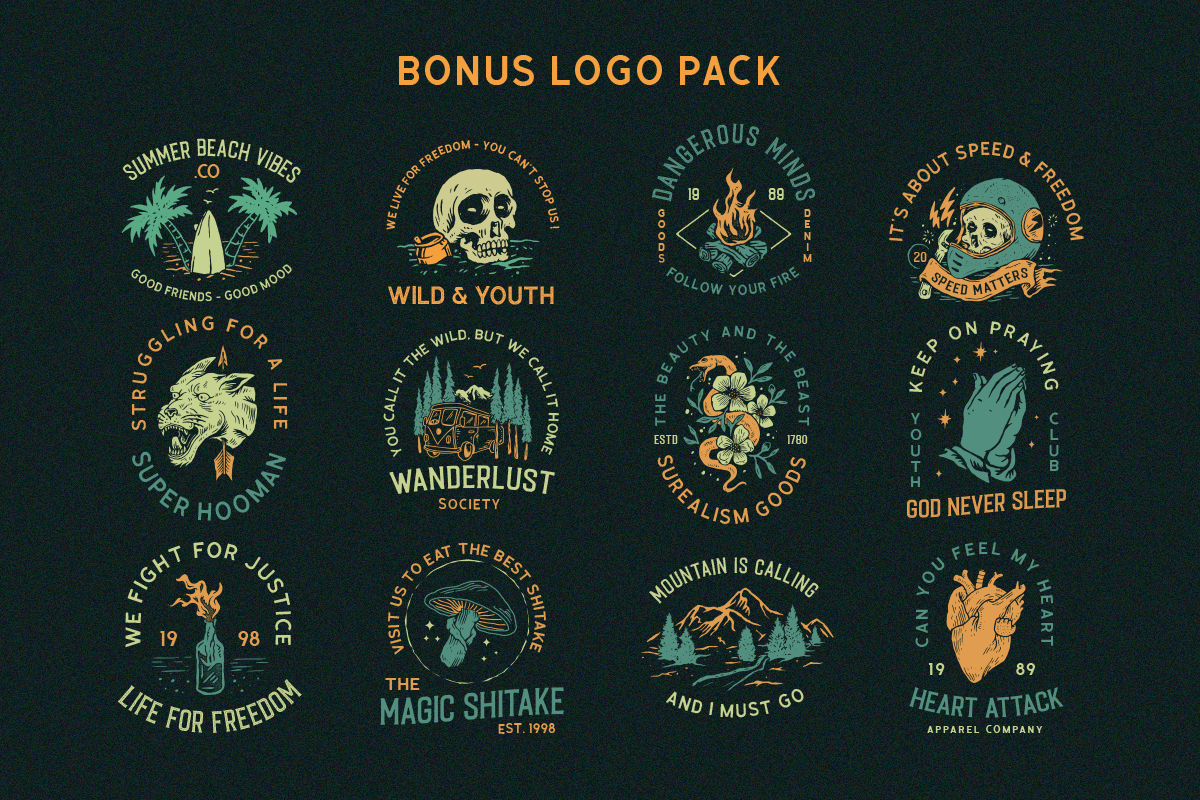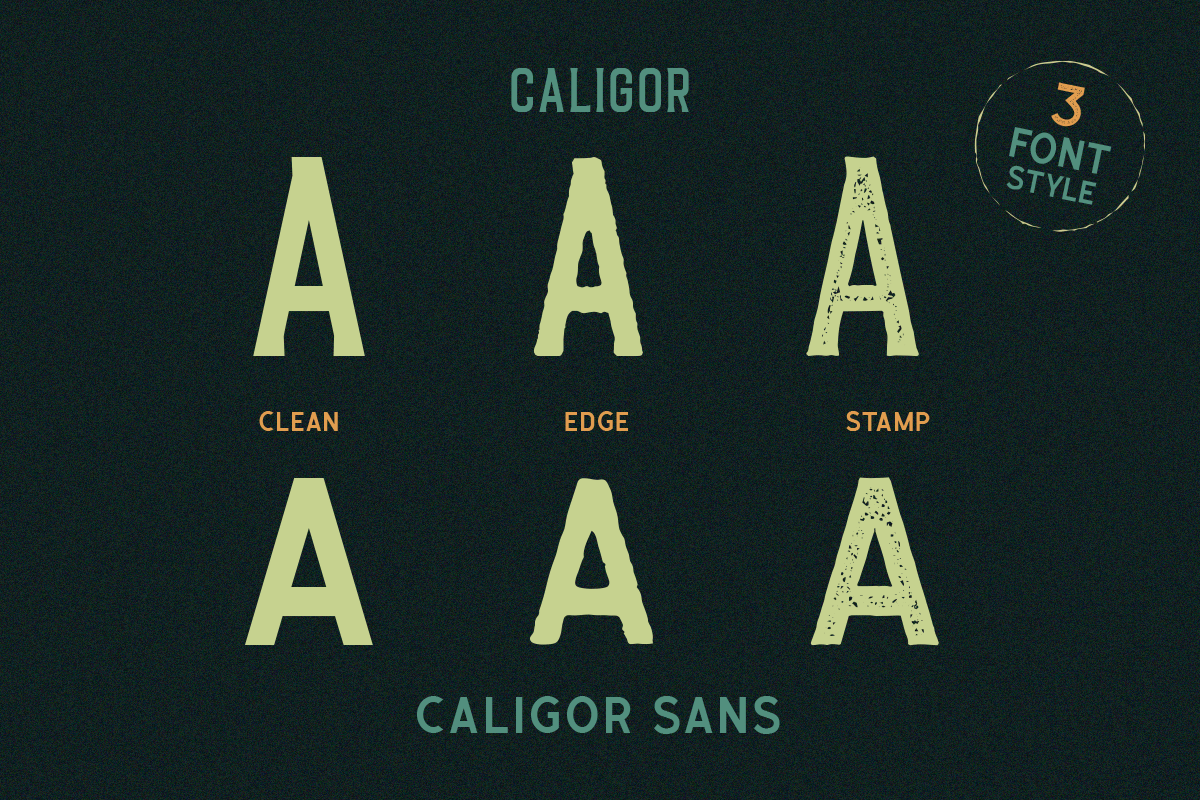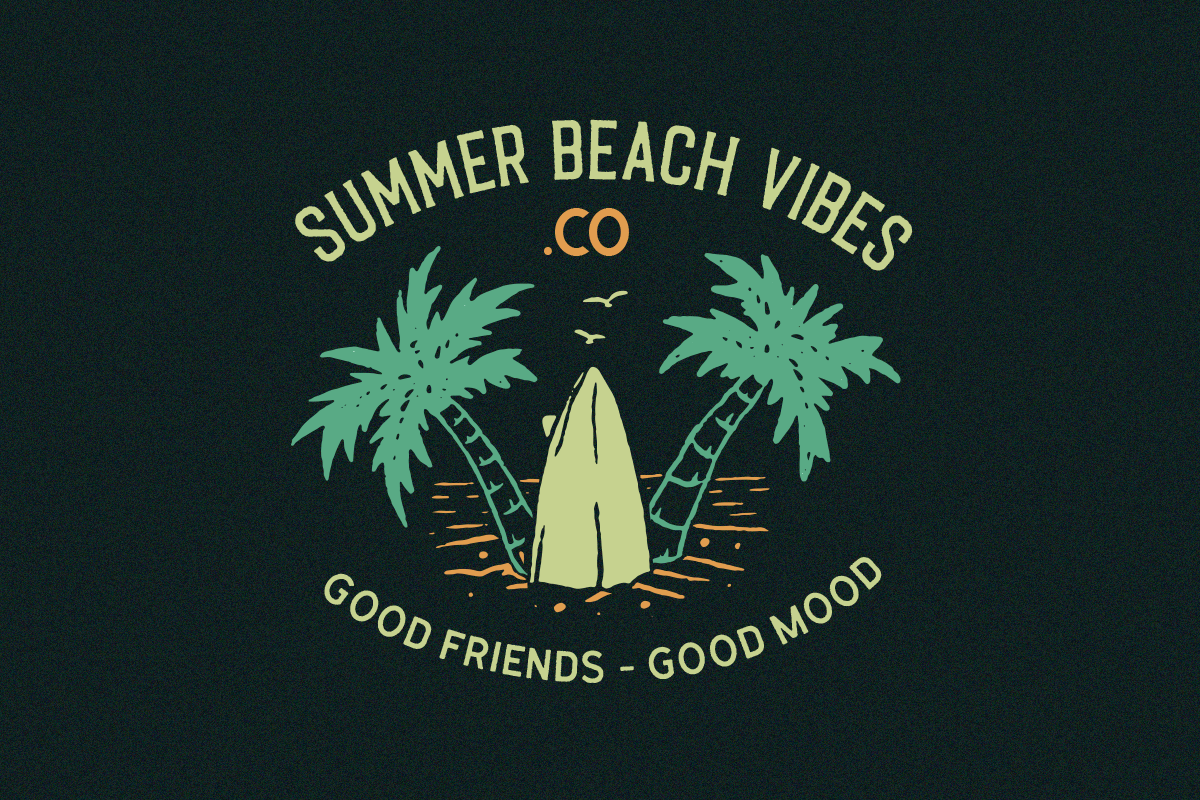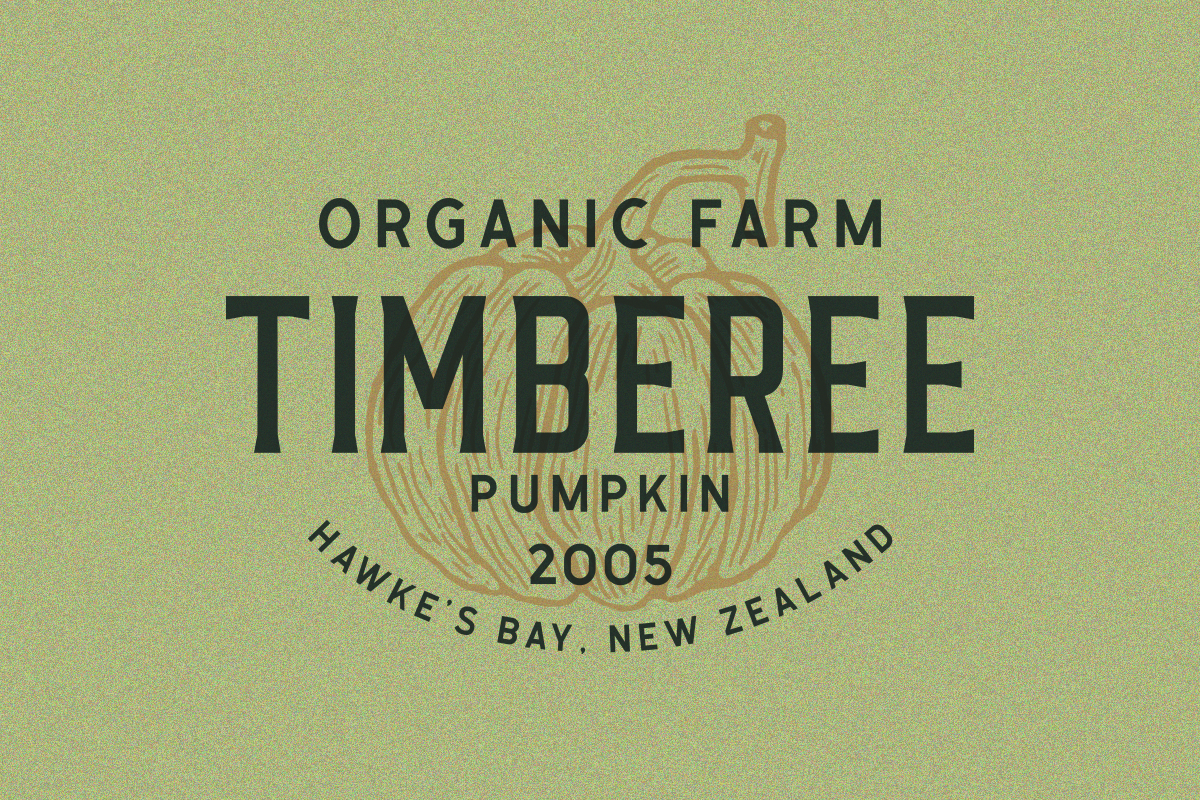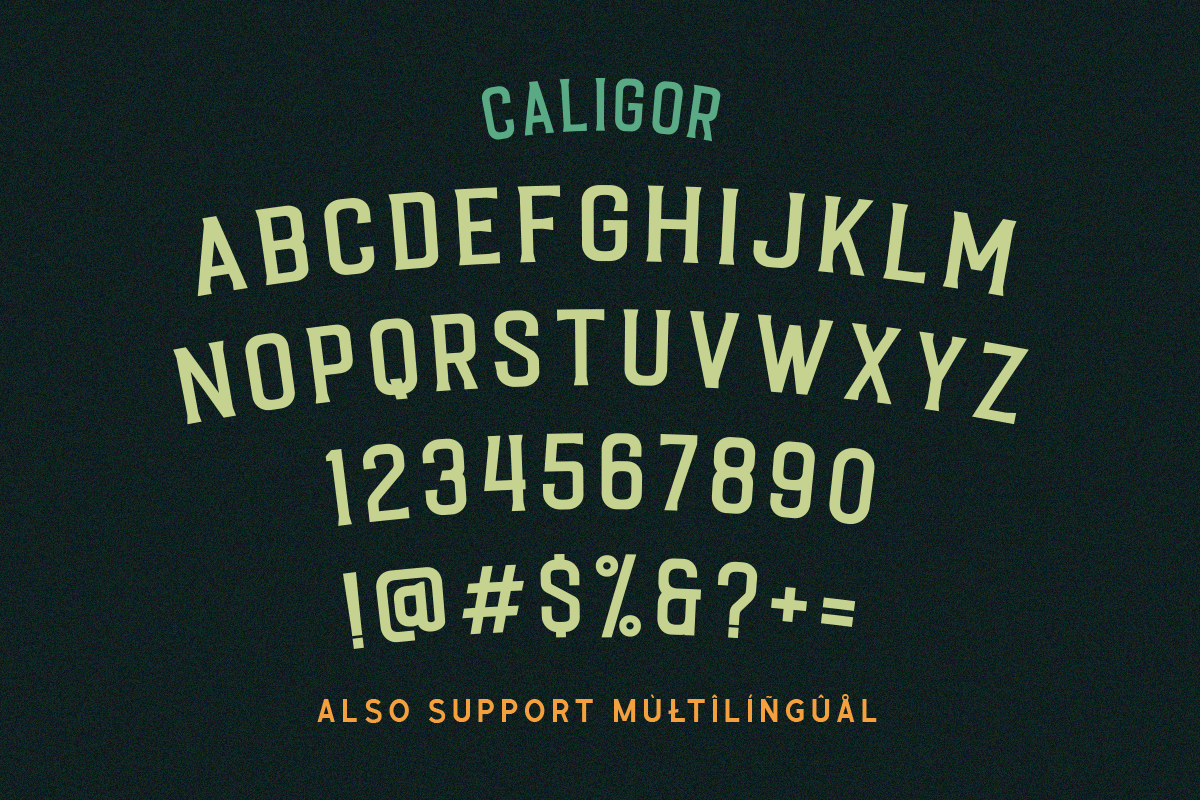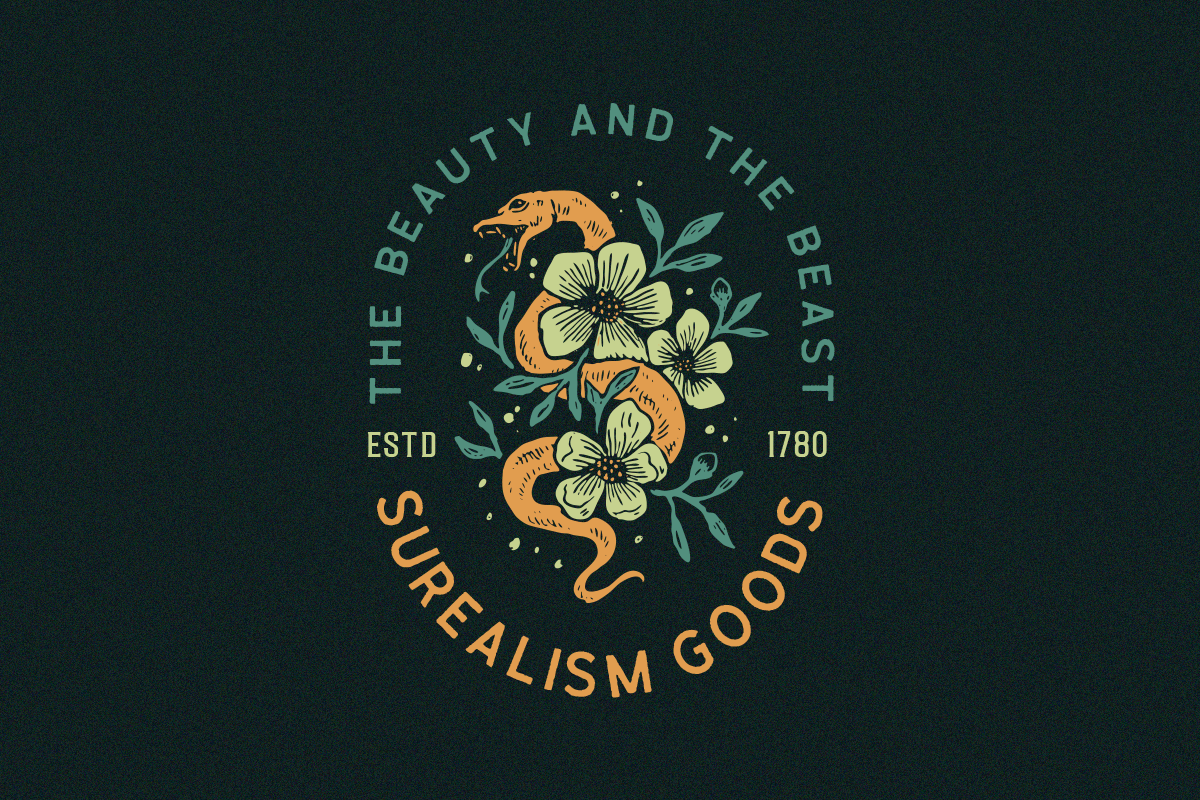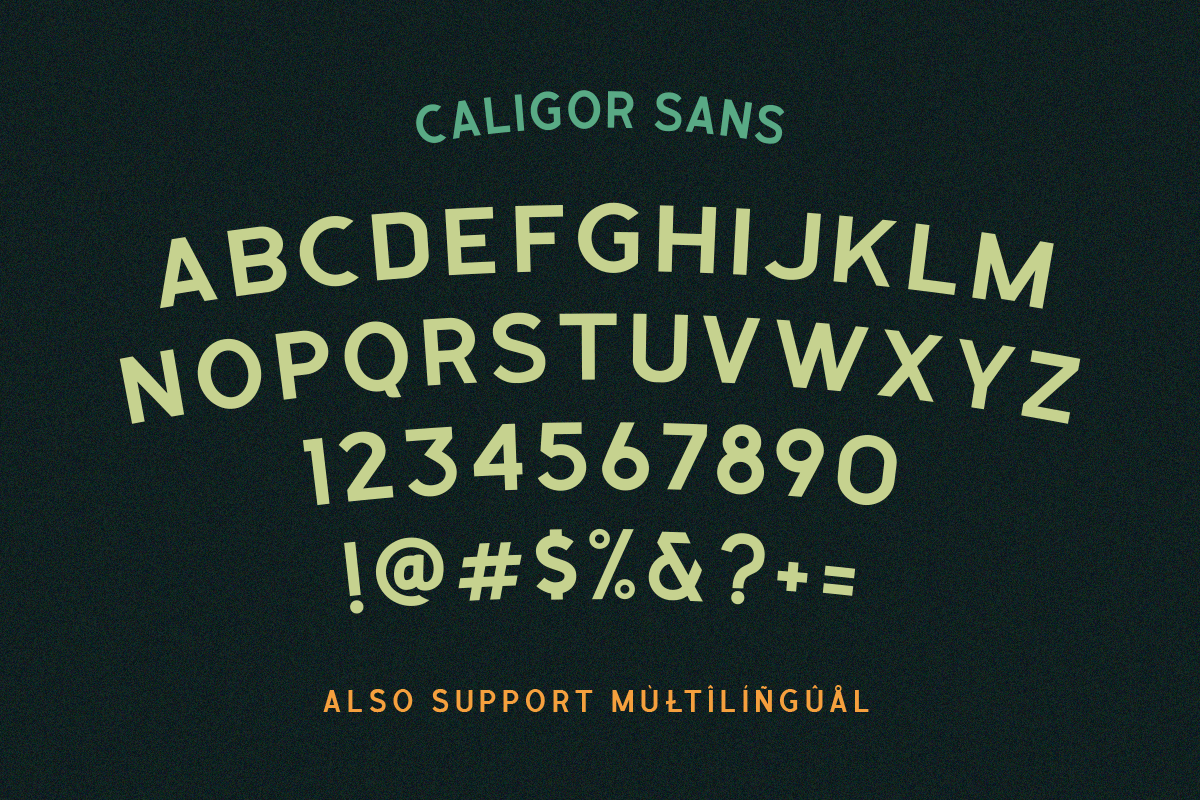
CALIGOR - Display Typeface
Introducing, Caligor.
Caligor is a A Display Typeface Family which is suitable for you who needs a typeface for headline, logotype, apparel, invitation, branding, packaging, advertising etc. This typeface is comes in uppercase, lowercase, punctuations, symbols & numerals, stylistic set alternate, ligatures, etc also support multilingual and already PUA encoded.